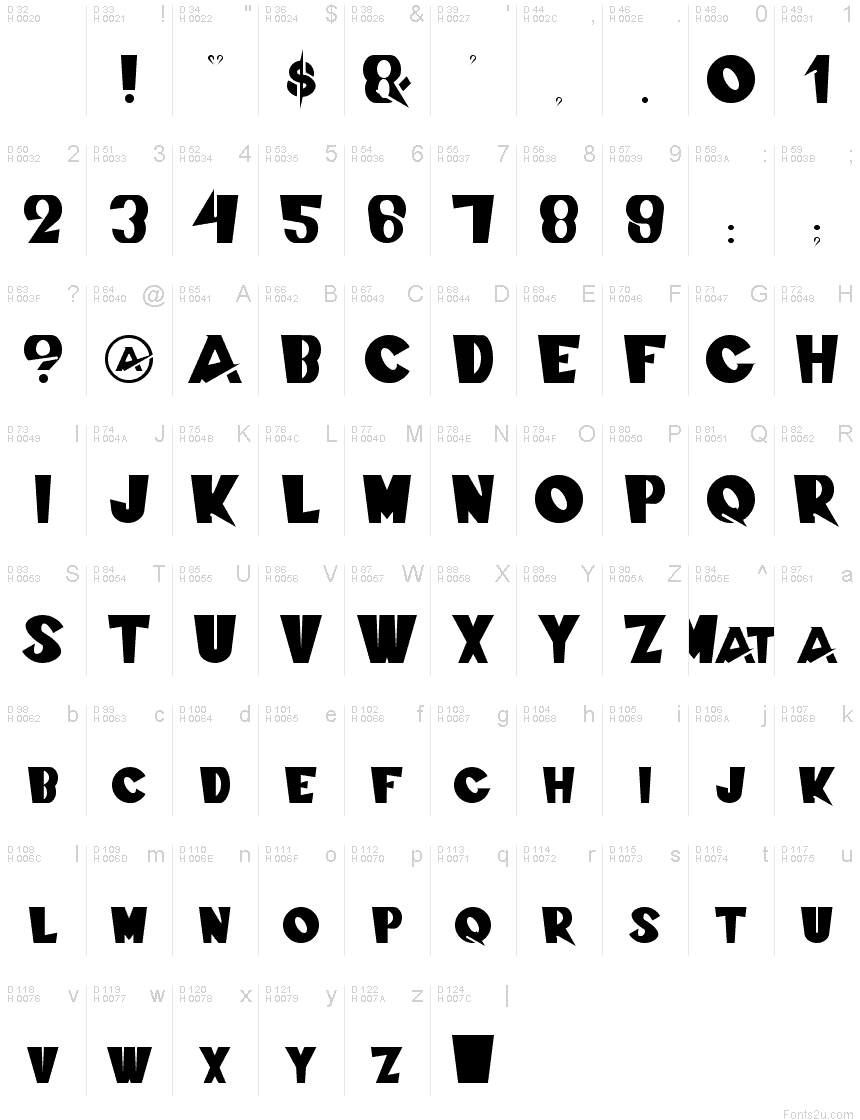
Swiss Cheesed
Swiss Cheesed version 2-freeware © 1995 (all characters except Q, U, A, N, T, M, L, E, P, q, a, n, t, u, m, l, e, p) by mattt chisholm. Quantum Leap like font modeled after the TV show logo. if you like it, tell me so: strthrwr@cats.ucsc.edu, mattatsc@a